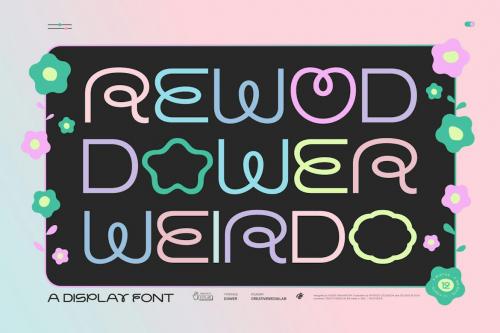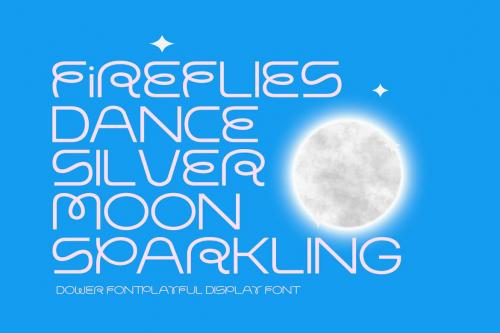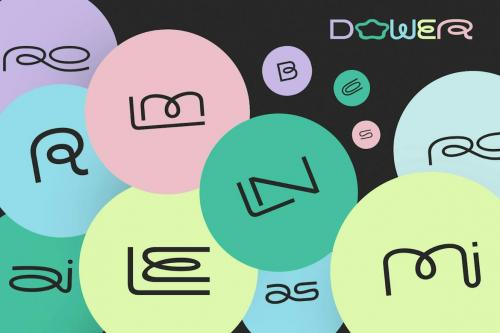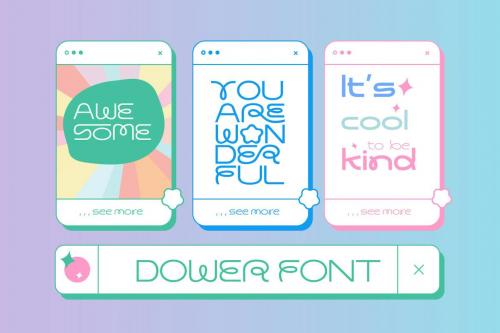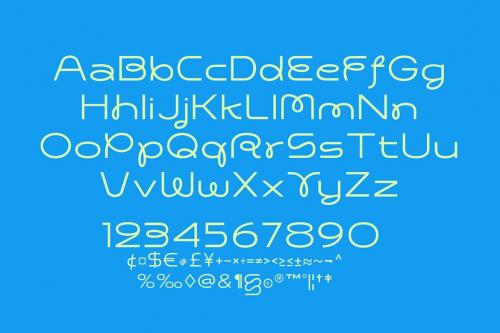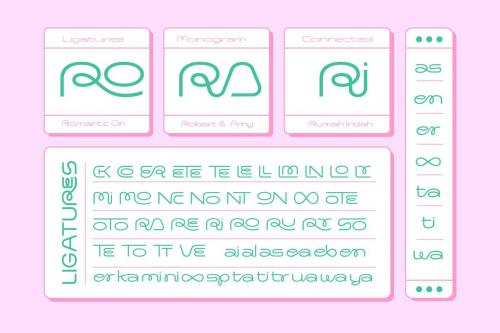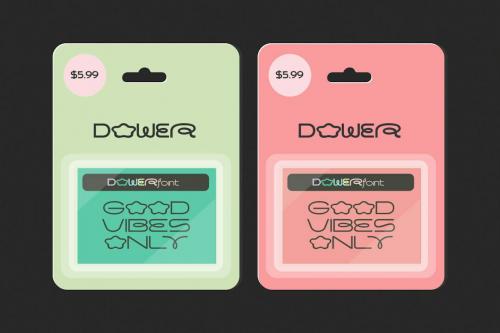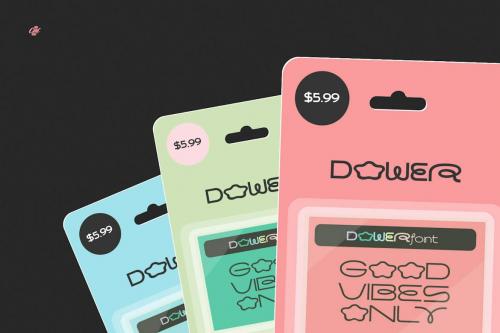
道具 - 有趣的装饰展示字型
Dower - Playful decorative display Font
Dower is a playful decorative display font. The doodle style and hand-drawn lettering inspire this geometric sans serif. including dozens of ligatures. You can use Dower in many types of creative modern concept designs.